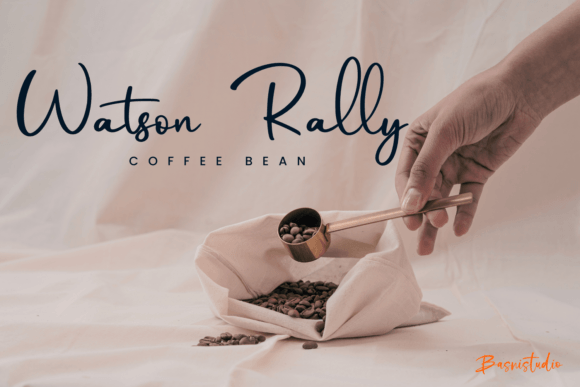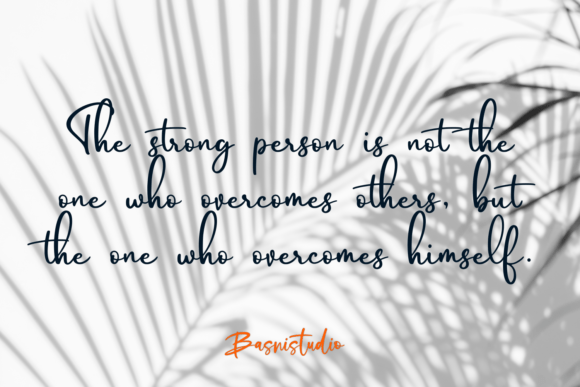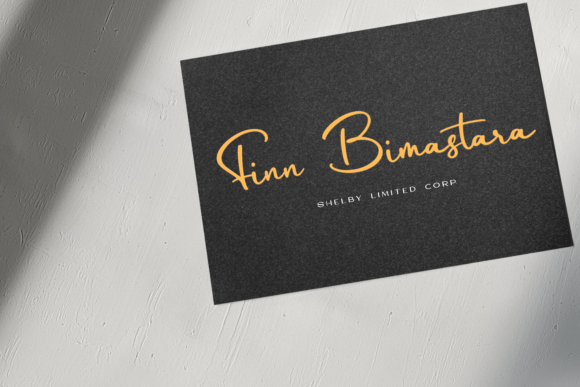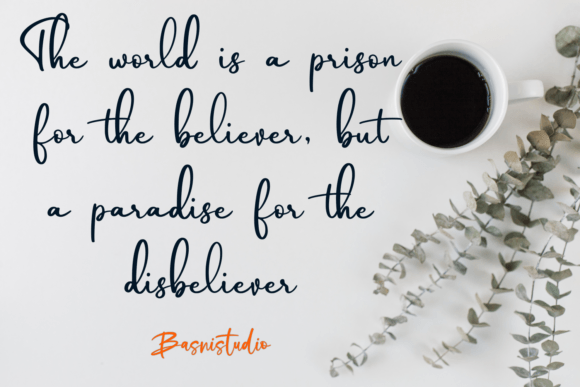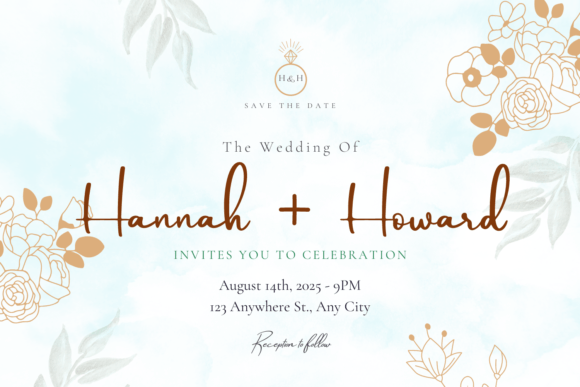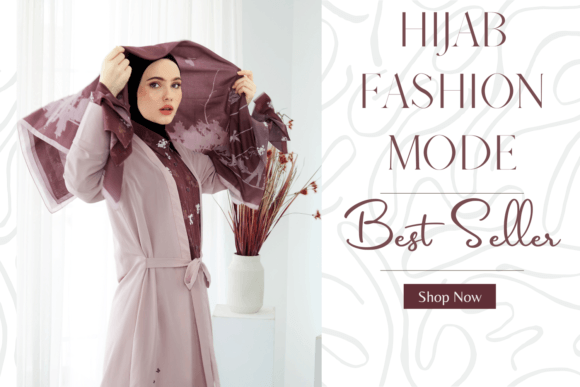
Bostanic Millague Font FREE Font Download
The Designer’s Delight: Bostanic Millague Font
I’ll never forget the struggle I faced while working on a branding project for a new eco-friendly skincare line. My client wanted a font that would convey a sense of natural elegance and sophistication. I scoured the internet, tried countless fonts, but nothing seemed to fit the bill. That was until I stumbled upon Bostanic Millague – a beautifully crafted handwritten font that instantly elevated my design game.
As a designer, I’m always on the lookout for fonts that can add a personal touch to my projects. Bostanic Millague ticks all the right boxes. Here’s what I love about it:
• ✨ Unique, natural flair that sets it apart from more traditional fonts
• ✅ Elegant and sophisticated, perfect for high-end branding and editorial designs
• ⚡️ Highly legible, even at smaller font sizes
• 🌈 Beautifully crafted with attention to detail and precision
Of course, no font is perfect, and Bostanic Millague has a few minor quirks:
• 🤔 Some users may find the font a tad too ornate for very small font sizes or body text
• ⚠️ Limited availability of certain OpenType features in certain software
The Story Behind Bostanic Millague
Bostanic Millague was crafted with love and care by a talented type designer who drew inspiration from traditional handwritten scripts and the beauty of nature. The font’s unique style is a testament to the power of human creativity and attention to detail.
Font Name Bostanic Millague Font
Author bee.genin
Is Bostanic Millague suitable for body text? While it’s possible to use Bostanic Millague for body text, it’s recommended for headlines and titles due to its elegant, cursive nature